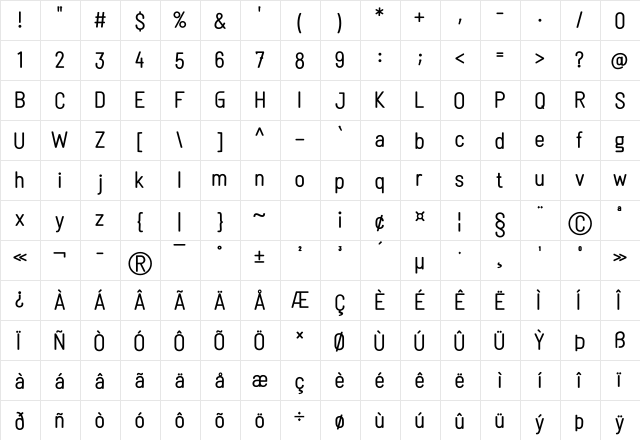
Linguineve Regular
| Designer | Wahyu Saputra |
Design Context for Linguineve Typeface
Linguineve takes a measured approach to typography — its balanced proportions and neutral character make it a reliable workhorse for both digital and print work.